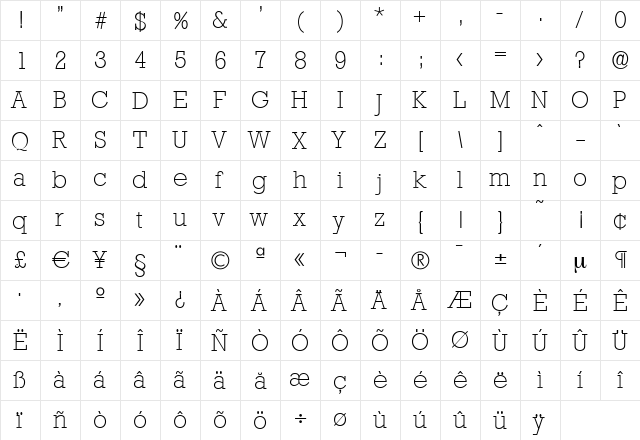
EugeneBecker-ExtraLight Regular Font Preview
EugeneBecker-ExtraLight Regular
EugeneBecker-ExtraLight Regular Font Details
Design Context for EugeneBecker-ExtraLight Typeface
EugeneBecker-ExtraLight is a composed and adaptable typeface that performs quietly and consistently across a wide range of design contexts. Its slender proportions lend an understated elegance to any composition.